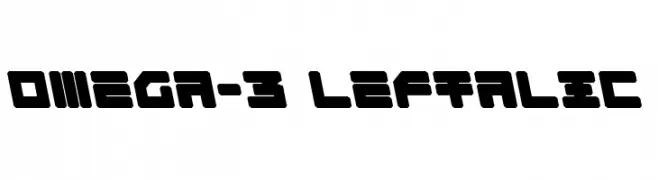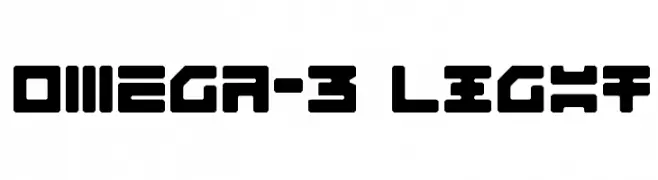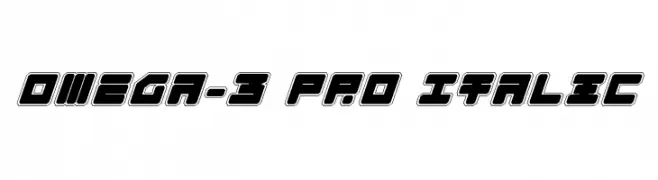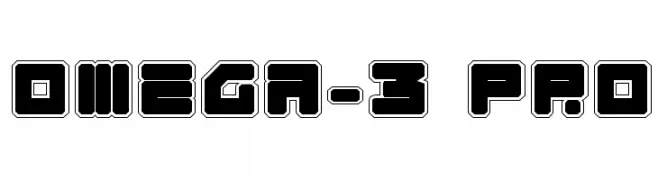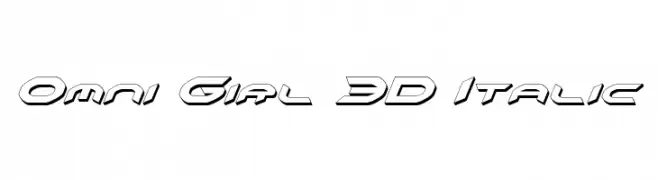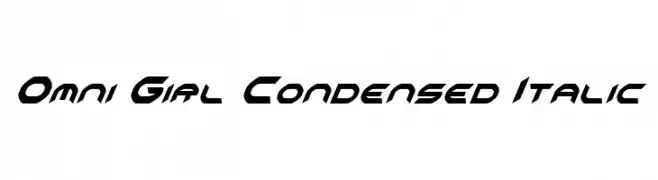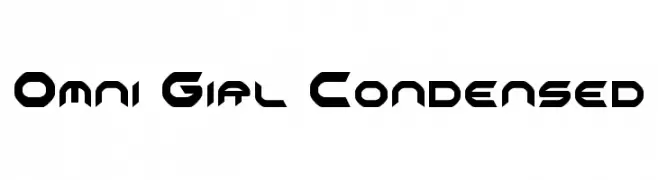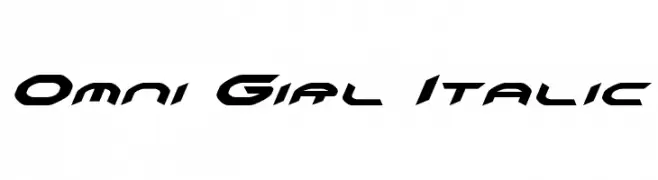
A bold, geometric font with a futuristic and tech-inspired design.
A bold, futuristic font with geometric shapes and a strong, modern presence.
A bold, futuristic font with angular, italicized characters.
A bold, geometric font with a futuristic, three-dimensional style.
A bold, italic, futuristic font with geometric shapes and thick outlines.
A bold, futuristic 3D font with sharp angles and a shadow effect.
A bold, futuristic 3D italic font with sharp angles and dynamic style.
A futuristic, geometric font with sharp angles and a condensed style.
A futuristic, condensed italic font with sharp, angular edges.
A futuristic, italicized font with angular and dynamic letterforms.